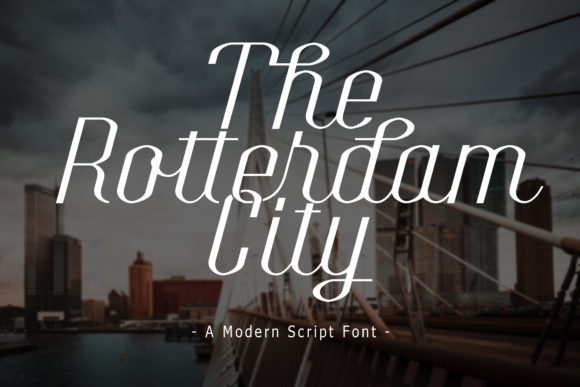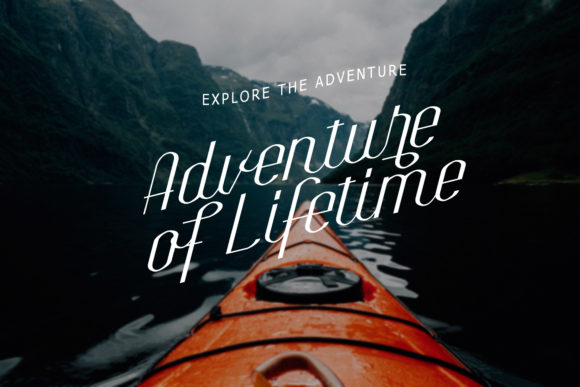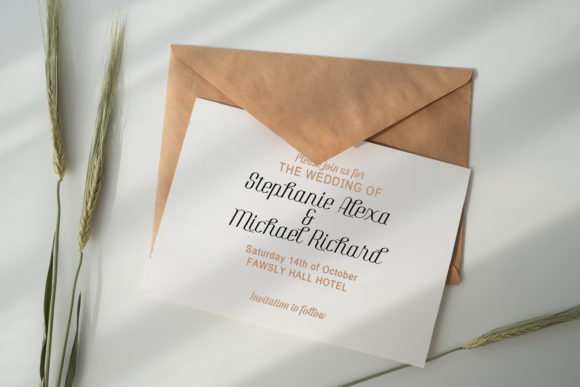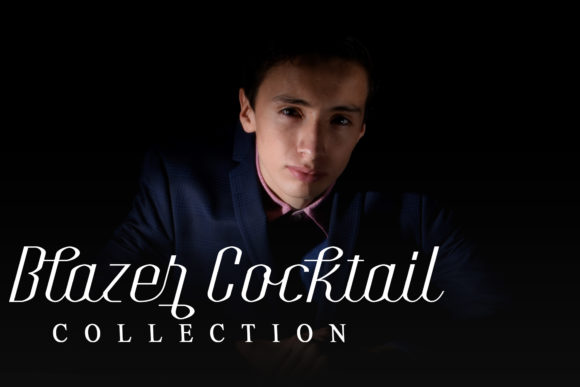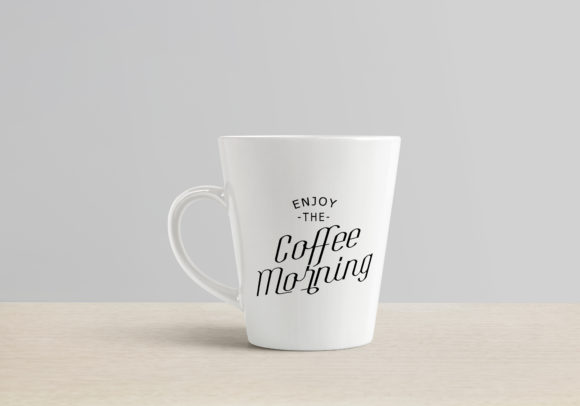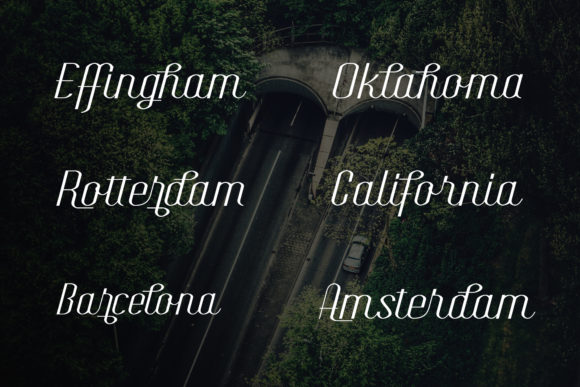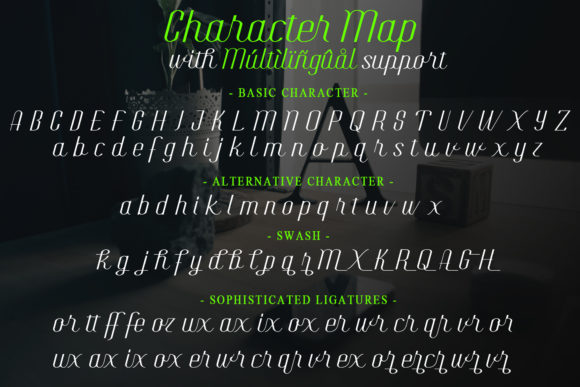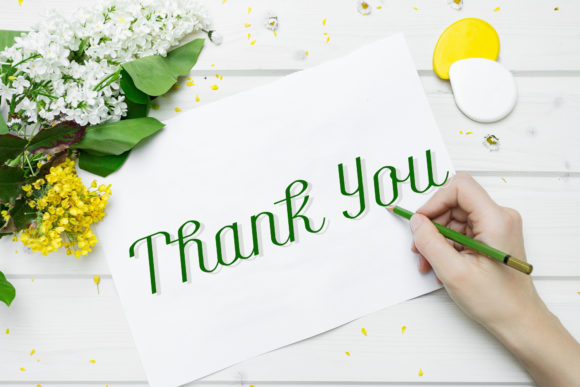
The Rotterdam City Font
About The Rotterdam City Font
The Rotterdam City is a cool and charming handwritten font that will add an authentic vibe to any design project!